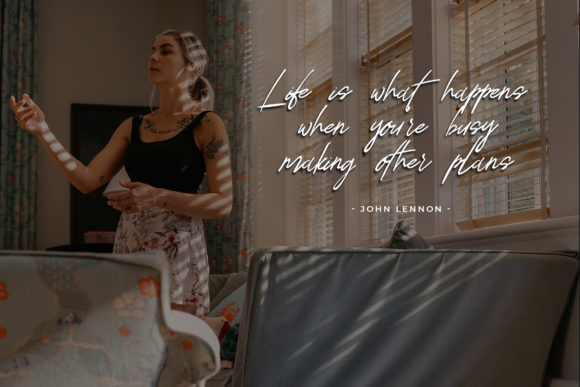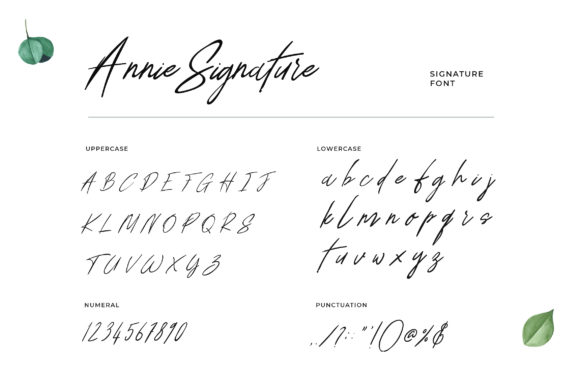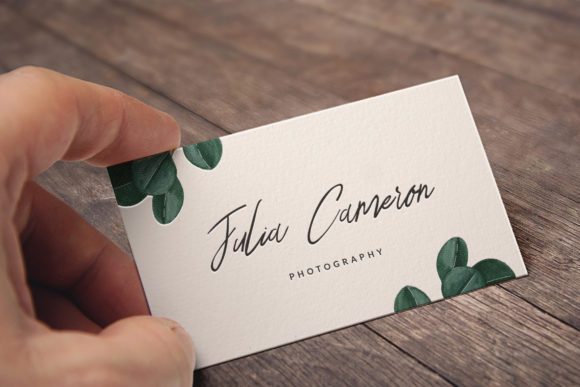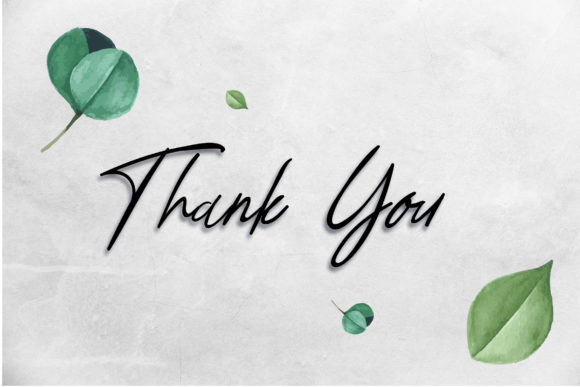
Discover the Magic of Annie Signature Font
Do you ever find yourself staring at a blank page, feeling stuck and unsure of how to bring your creative vision to life? You’re not alone. We’ve all been there – the blank page staring back at us, waiting for our next move. But sometimes, all it takes is the right font to spark inspiration. For designers looking to add a touch of elegance and sophistication to their work, Annie Signature Font is the perfect solution.
With its relaxed and fashionable script style, Annie Signature Font is perfect for a variety of design ideas, from formal wedding invitations to casual social media posts. Its trendy vibe makes it a valuable asset for any designer looking to stay on top of the latest design trends. Whether you’re working on a personal project or a professional client, Annie Signature Font is sure to impress.
Annie Signature Font Key Features
- Font Style: Script, Signature Font
- Unique Characteristics: Handwritten, Elegant, Whimsical, Perfect for Signatures, Titles, and Quotes
Annie Signature Font Review
I recently had the chance to work with the Annie Signature Font, and I’m sharing my honest thoughts on its performance.
- The Annie Signature Font is quite versatile and suitable for a wide range of projects, from logos and branding to wedding invitations and quotes.
- The font’s modern and elegant design makes it a great fit for those looking to add a touch of sophistication to their work.
Any limitations ⚠️
- The font’s design, while elegant, may not be suitable for all projects, especially those requiring a more playful or casual tone.
- The font is a single-weight font, which may limit its use in situations where multiple font weights are required.
Overall impression
Overall, I think the Annie Signature Font is a solid choice for designers looking to add a touch of elegance to their work. While it may not be the best fit for every project, its versatility and modern design make it a great addition to any designer’s font library.
The Annie Signature Font is ideal for creative and whimsical designs. Use it for:
- Invitations and party decorations.
- Children’s book illustrations and design.
For the best results, use the Annie Signature Font in conjunction with other playful and whimsical design elements.
Alternatives to Annie Signature Font
Great Vibes is a modern, elegant script font perfect for creating beautiful and unique designs. It’s ideal for use in headings, titles, and quotes where a touch of sophistication is needed. Compared to Annie Signature Font, Great Vibes has a more refined and delicate feel, making it suitable for a wider range of design projects.
Canela Font
Canela is a beautiful, handwritten font that’s reminiscent of classic calligraphy. It’s perfect for use in invitations, wedding designs, and other special occasion projects where a personal touch is desired. Compared to Annie Signature Font, Canela has a more rustic and vintage feel, making it ideal for projects that require a more distressed or aged look.
Carolyna Pro is a modern, elegant script font that’s perfect for use in high-end designs, such as luxury branding, fashion, and beauty projects. It’s ideal for creating beautiful, flowing typography that’s sure to impress. Compared to Annie Signature Font, Carolyna Pro has a more refined and sophisticated feel, making it suitable for high-end design projects where a touch of elegance is needed.
Lobster is a fun, playful font that’s perfect for use in casual designs, such as food menus, party invitations, and social media graphics. It’s ideal for creating a fun and lively atmosphere, and is sure to grab attention. Compared to Annie Signature Font, Lobster has a more relaxed and casual feel, making it suitable for projects that require a more laid-back vibe.